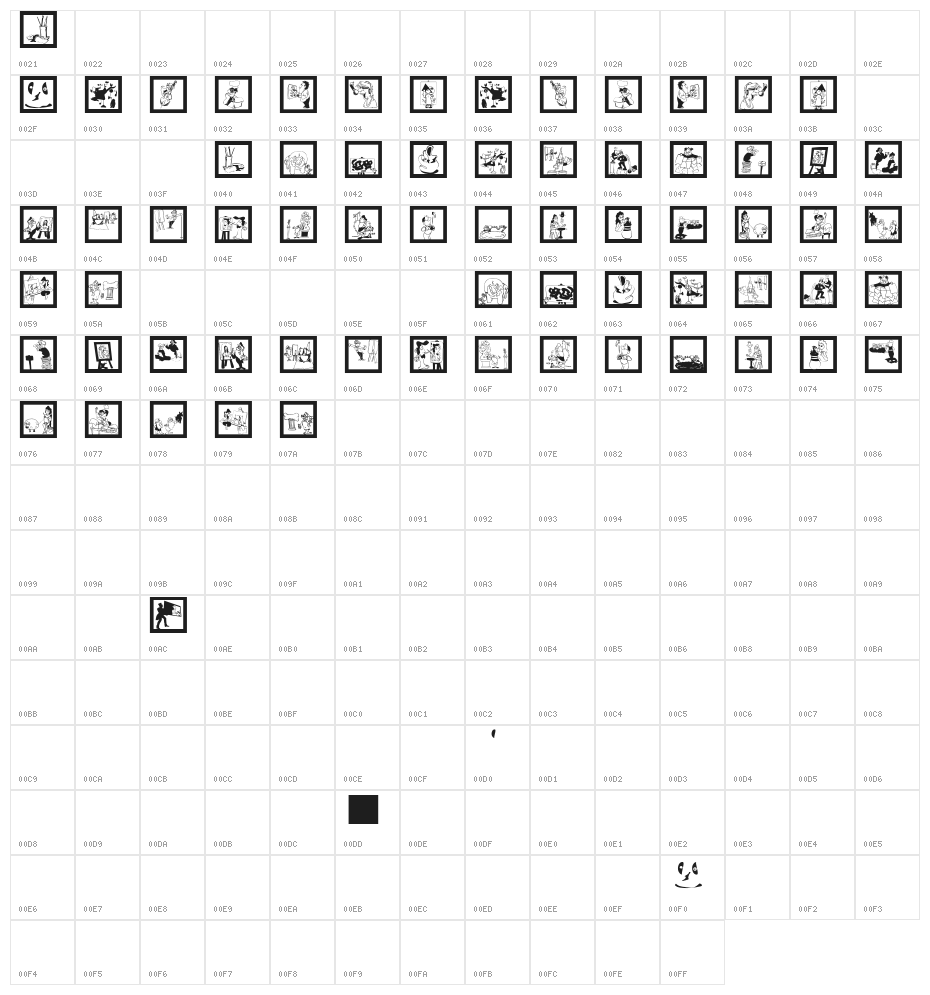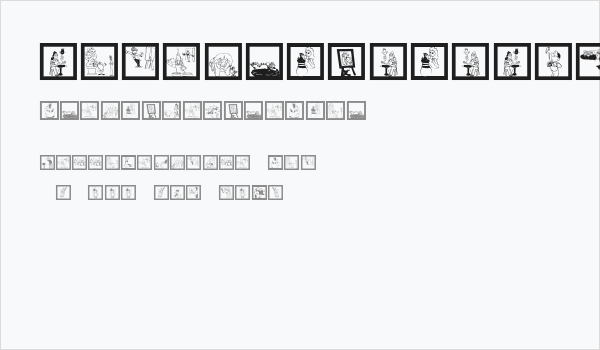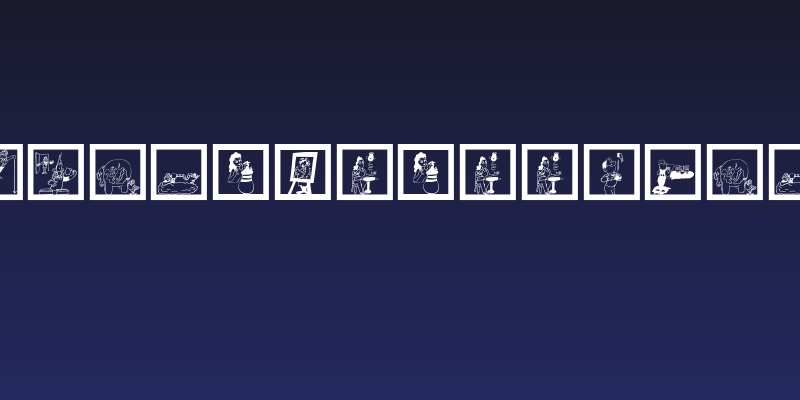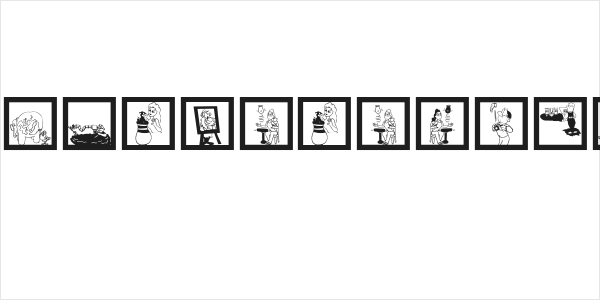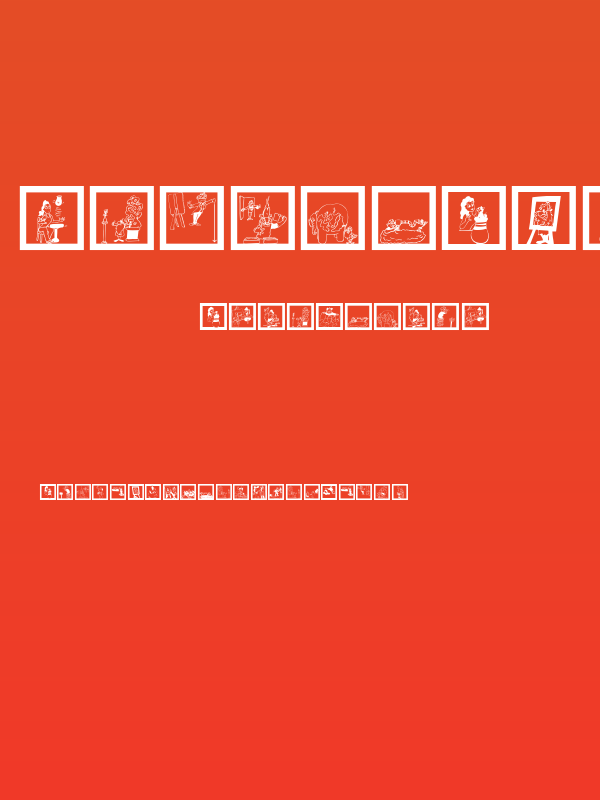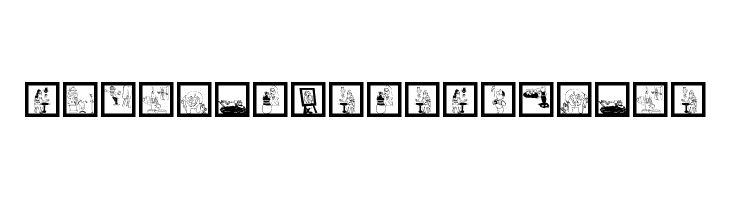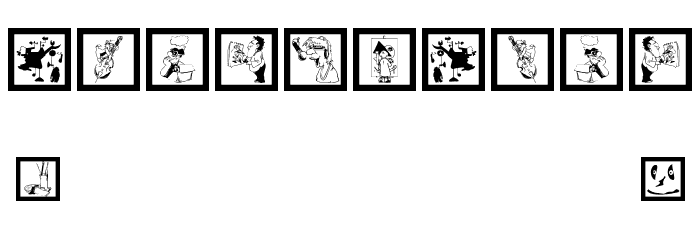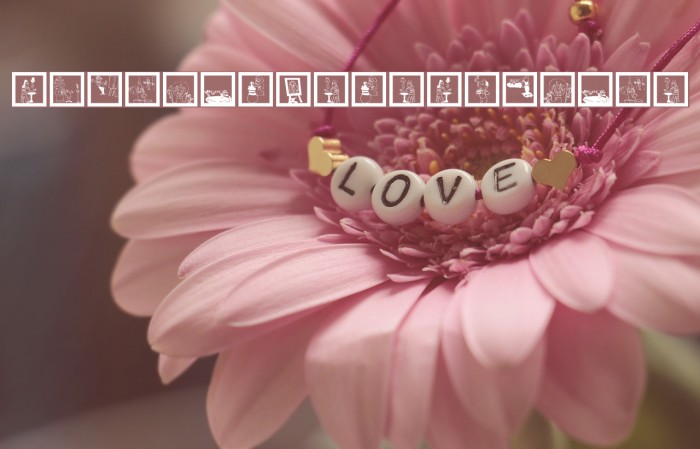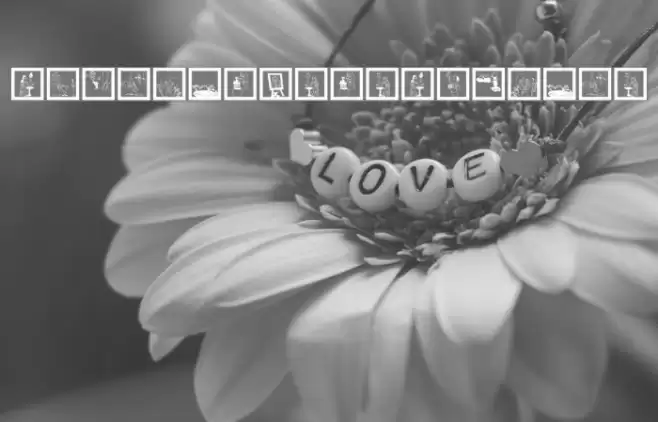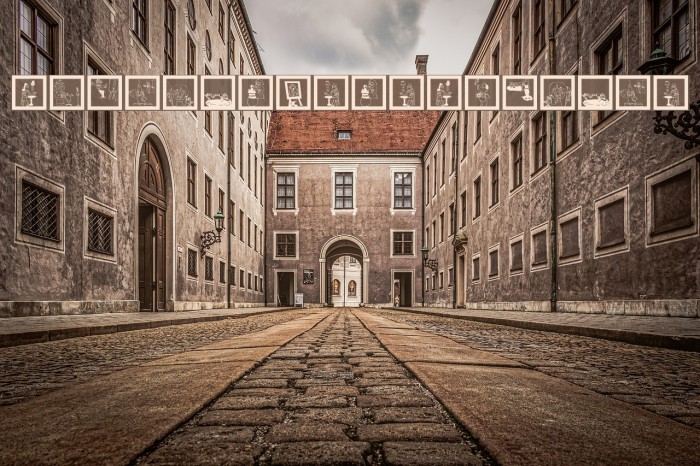
SomeArtistsSquares Font
SomeArtistsSquares Description
| Overall Style | Playful, Whimsical, Illustrative |
| Use Case | Decorative elements, Thematic icons, Storytelling visuals |
| Proposed Projects | Children’s books, comic strips, educational materials, playful branding, greeting cards. |